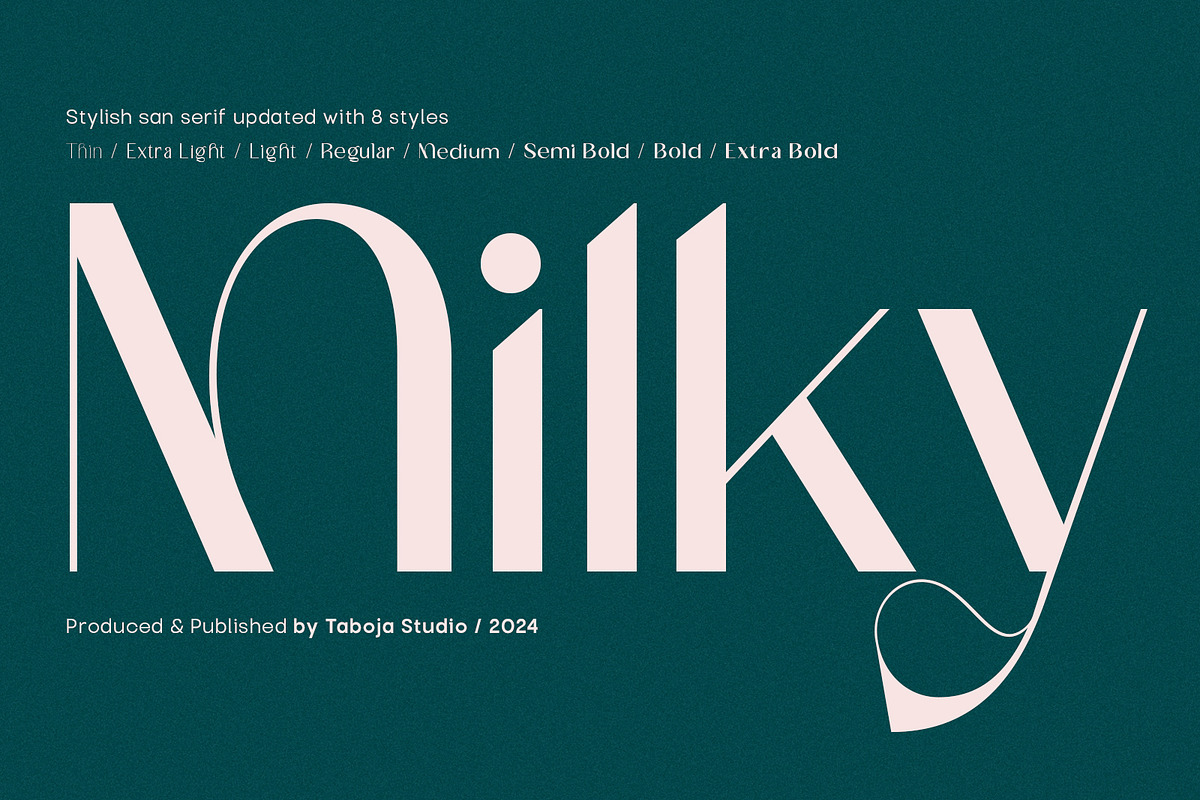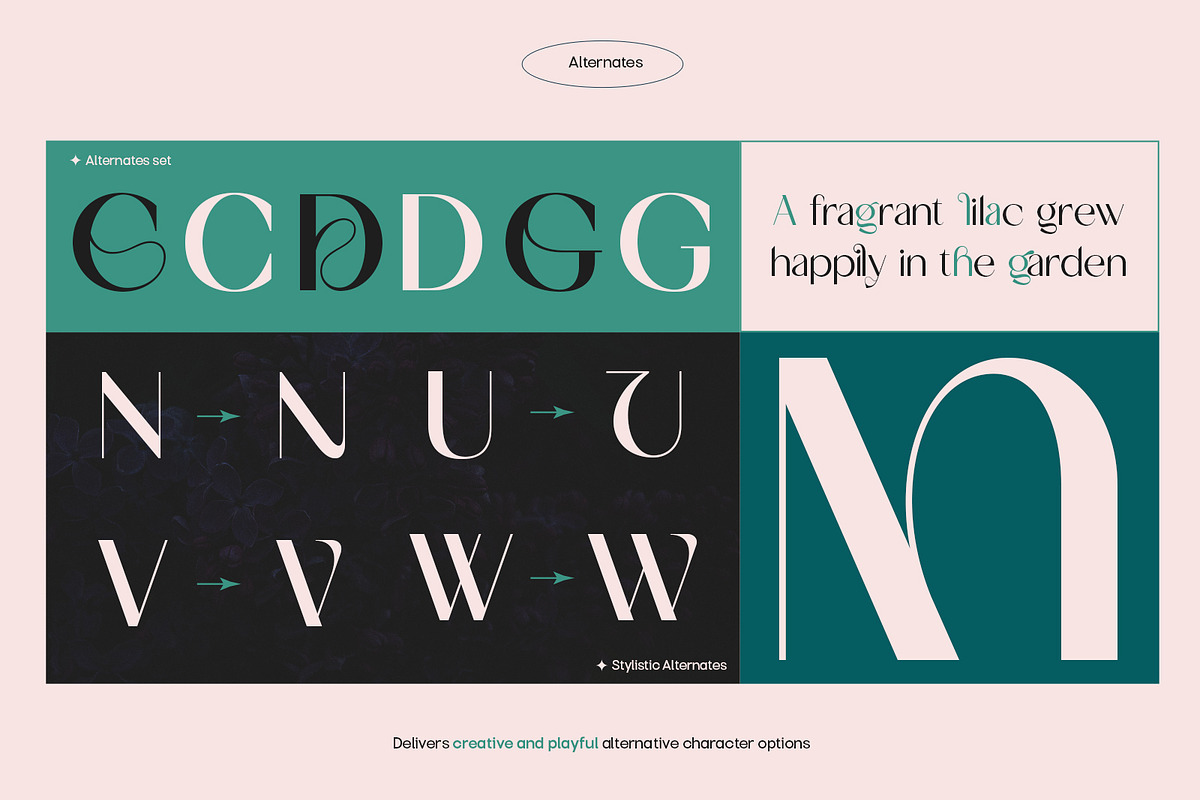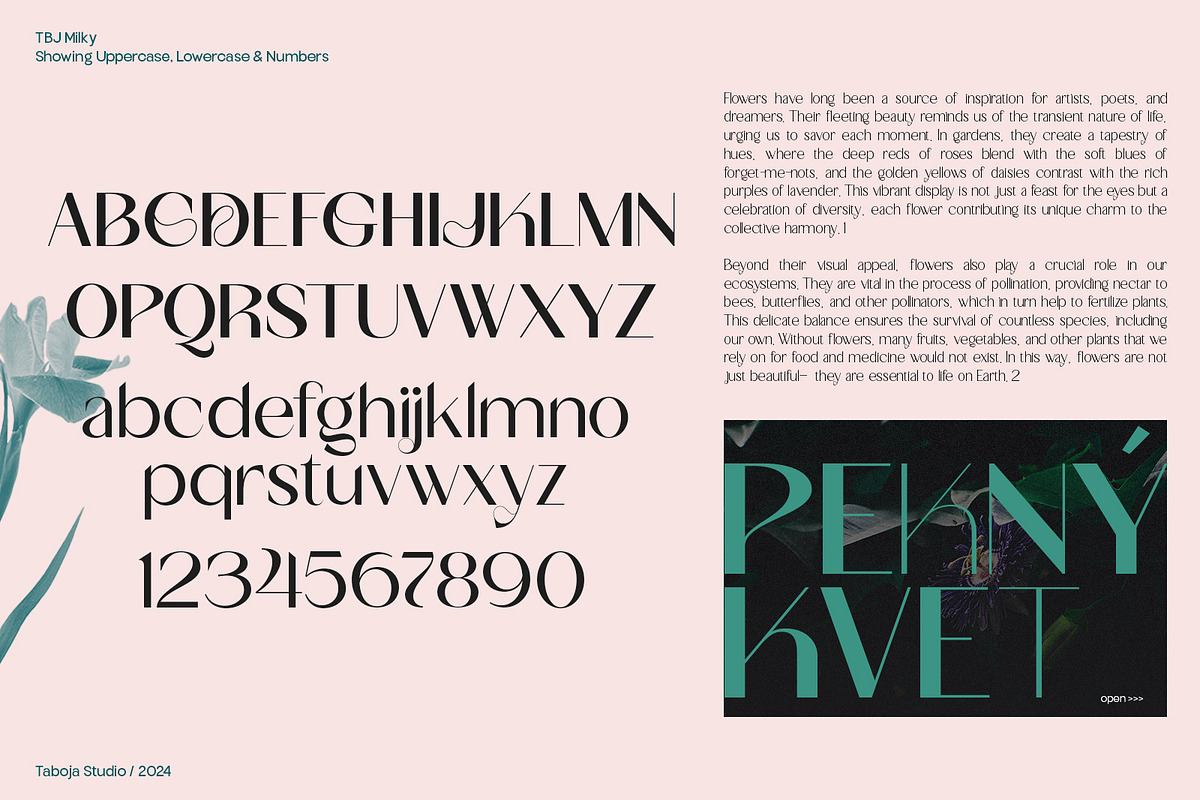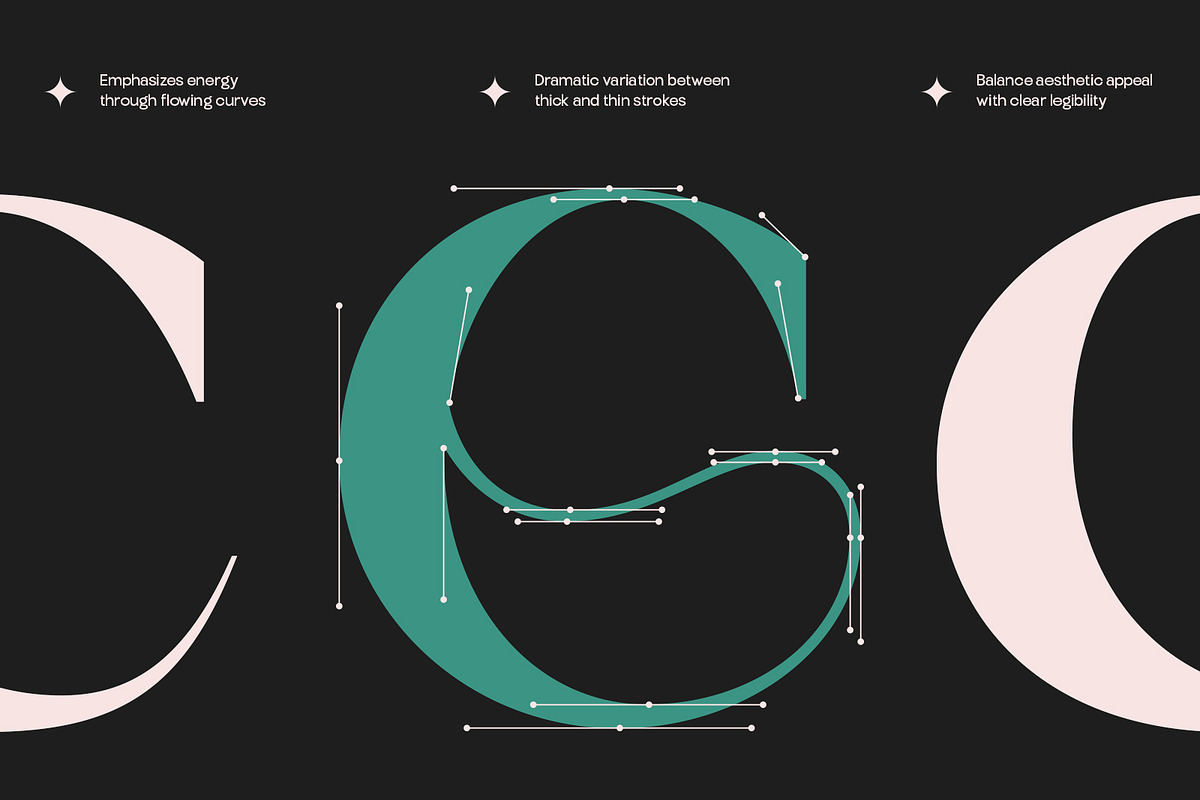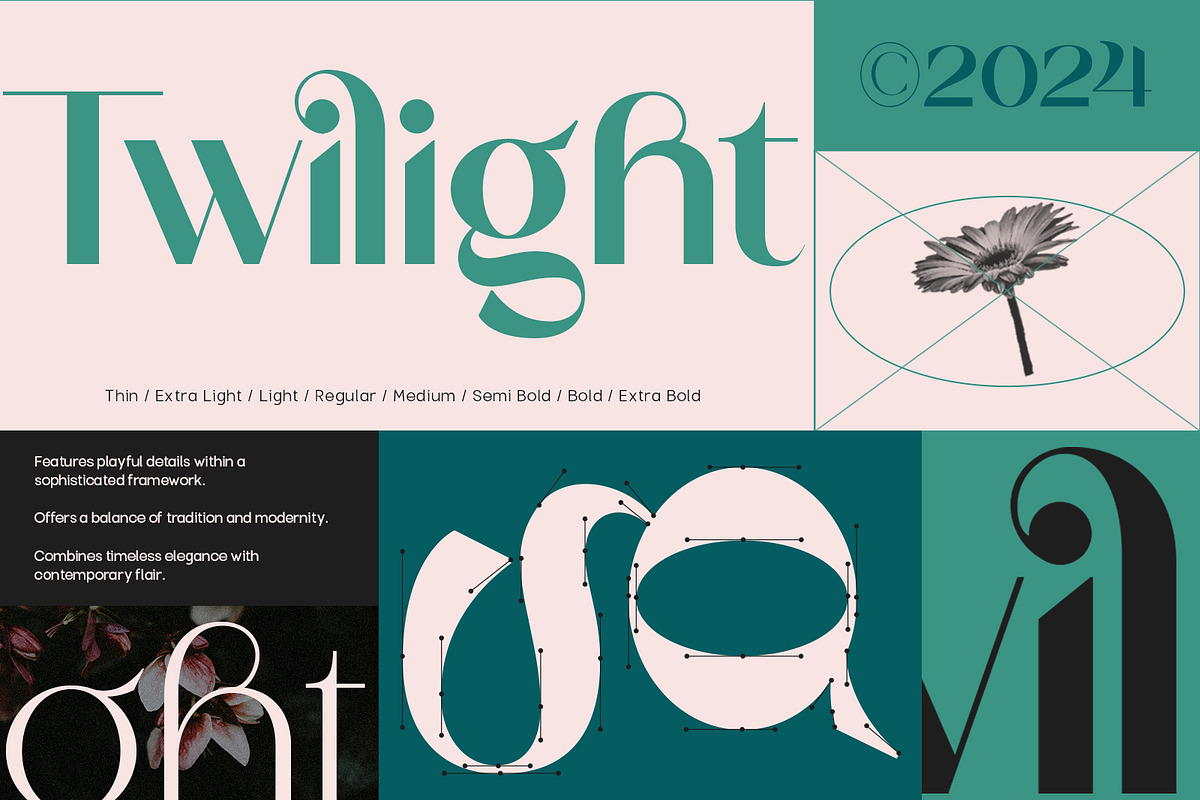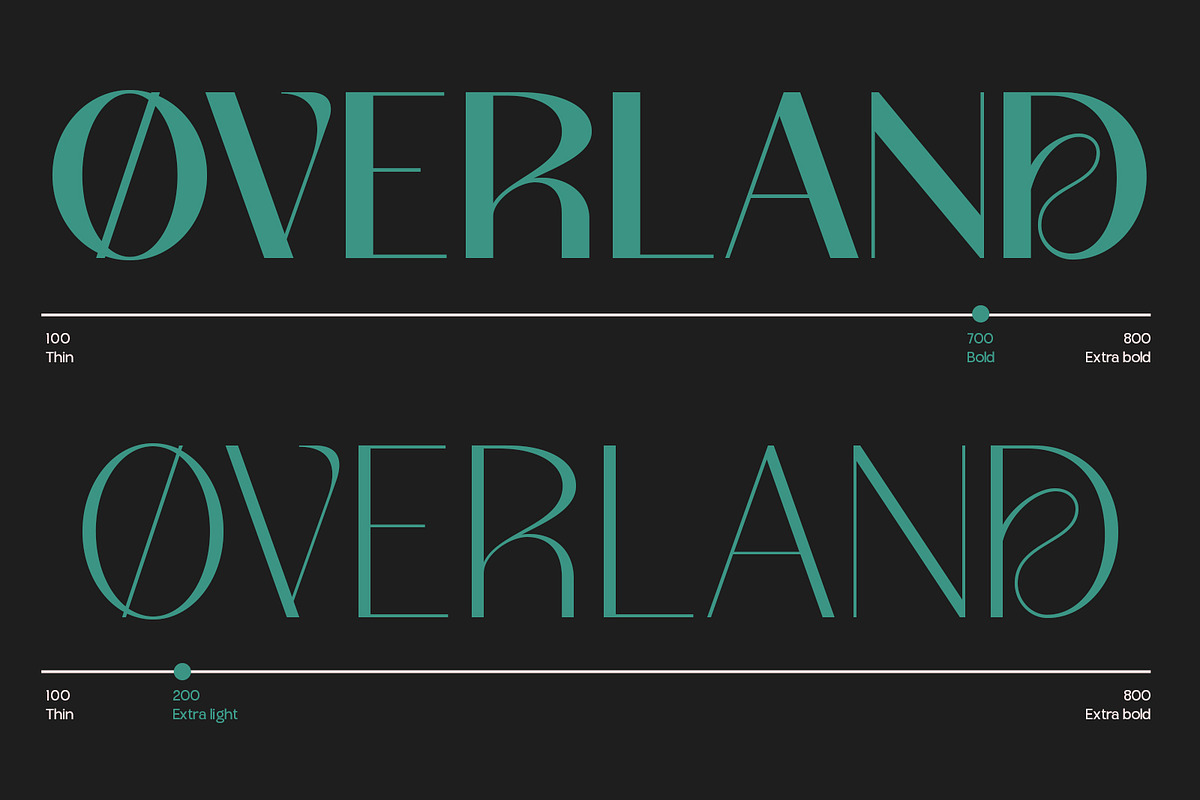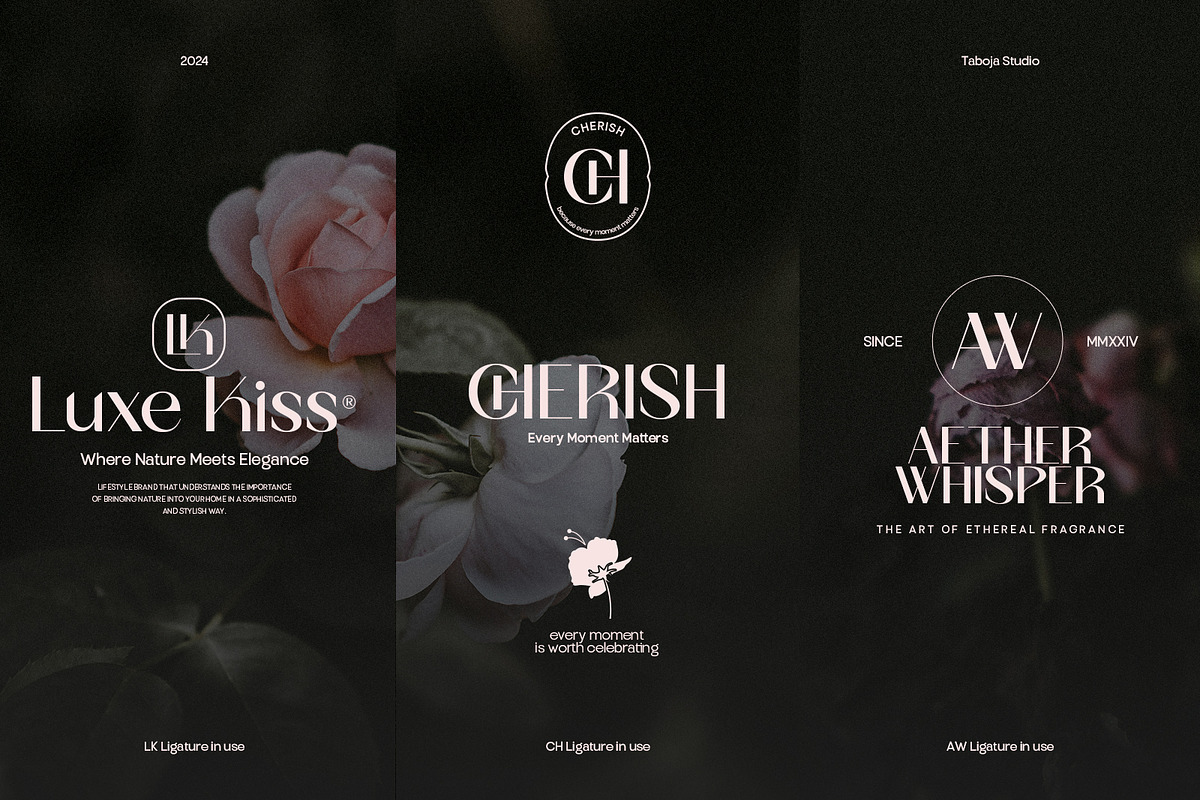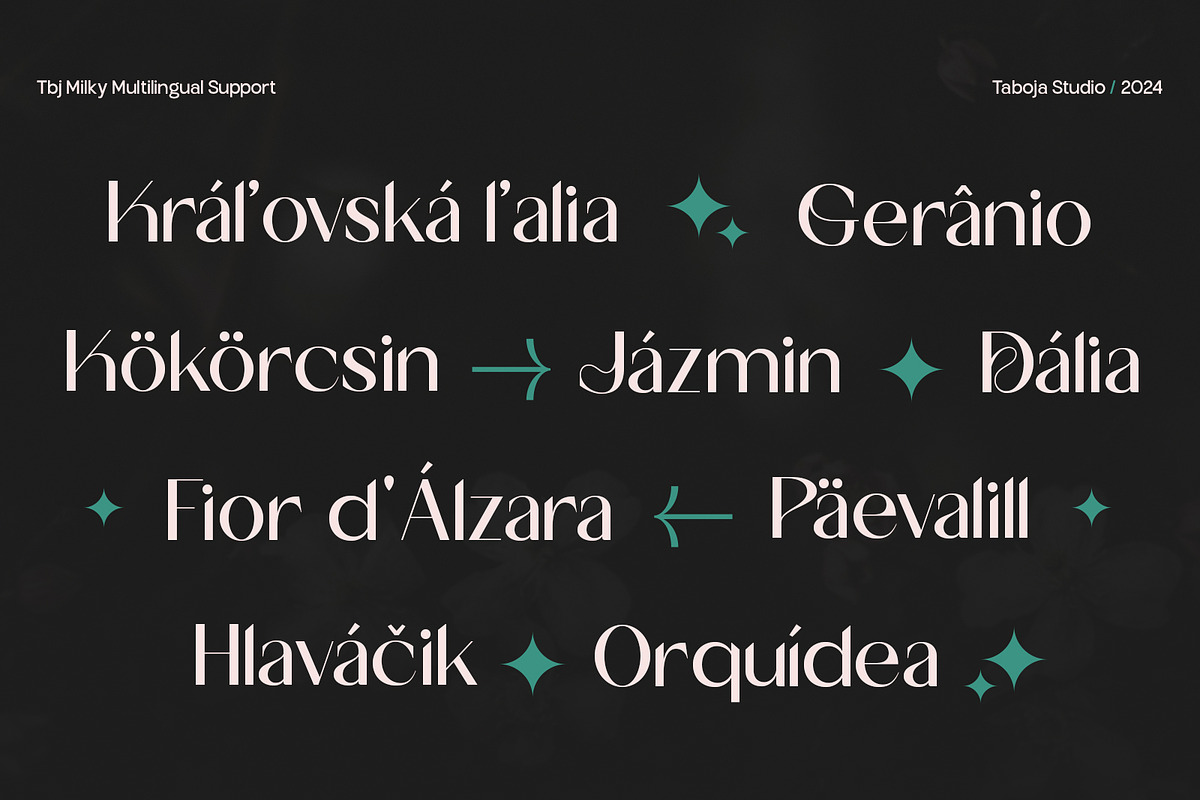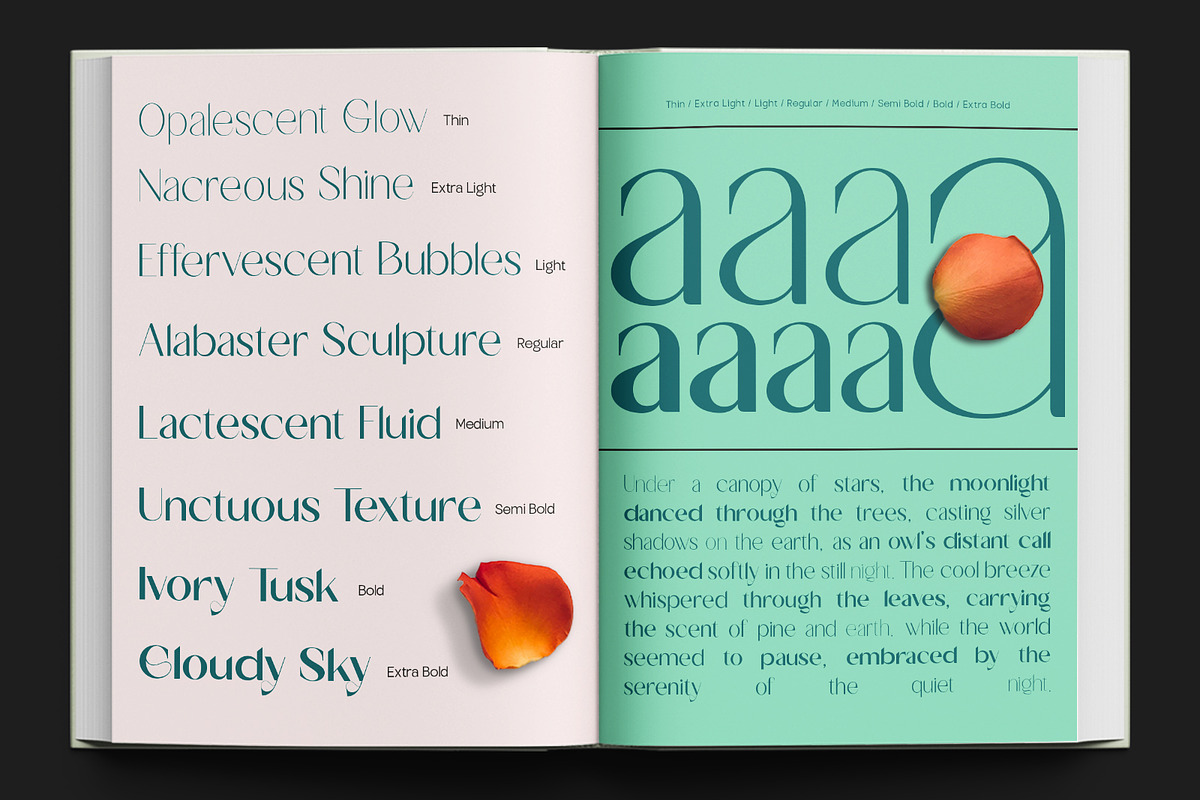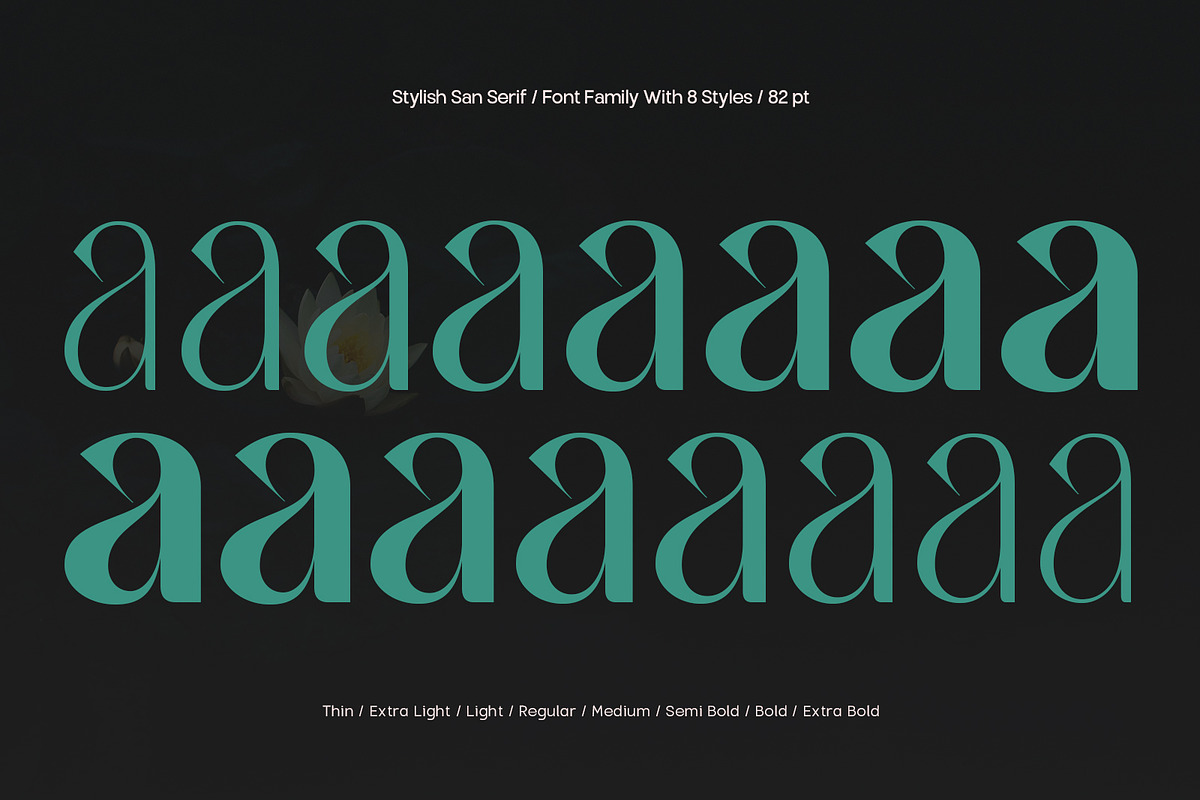
TBJ Milky – 8 Styles Boldly Sans
We are proud to introduce TBJ Milky in its latest version: a complete font family with 8 weights, born from a journey of passion and dedication. The initial release of TBJ Milky was available only in regular, but over time, we have remained committed to continuously developing this font without ever losing its distinct identity.
With a smooth balance of bold and thin strokes, and flexible alternatives, TBJ Milky offers a perfect blend of functionality and captivating aesthetics. Each update is designed to enhance the character of the font while maintaining its essence, providing designers with more flexibility.
TBJ Milky is more than just a font; it’s a work crafted with great care and hope that it will be embraced and appreciated by those who use it.
- TBJ Milky Thin, Extra Light, Light, Regular, Medium, Bold, Extra Bold,
- More Ligature & Alternatif